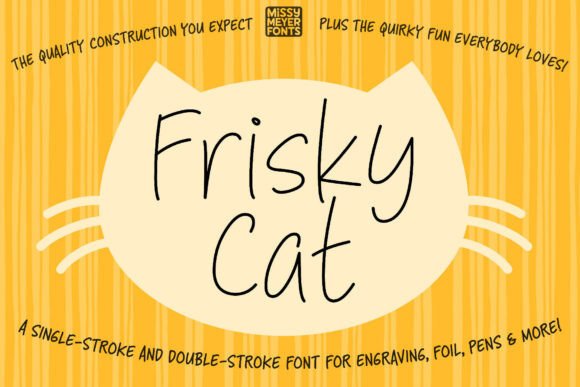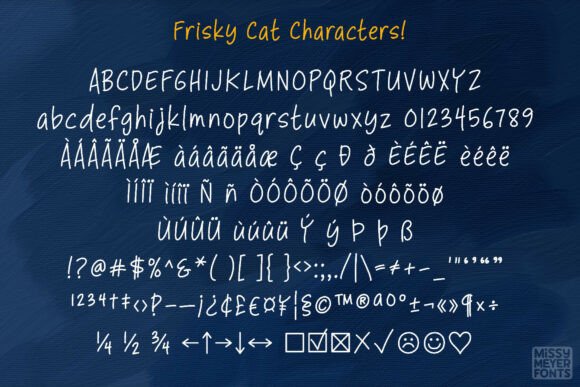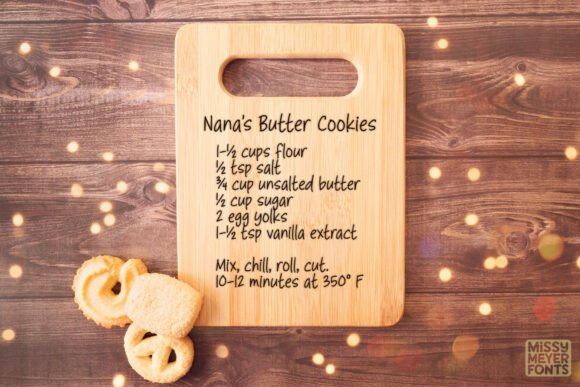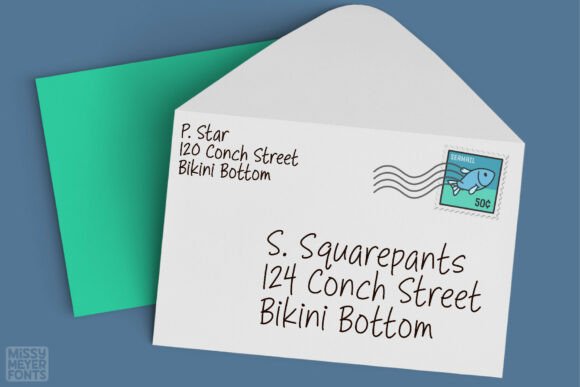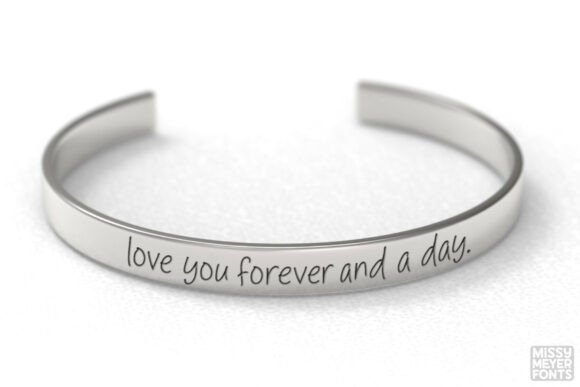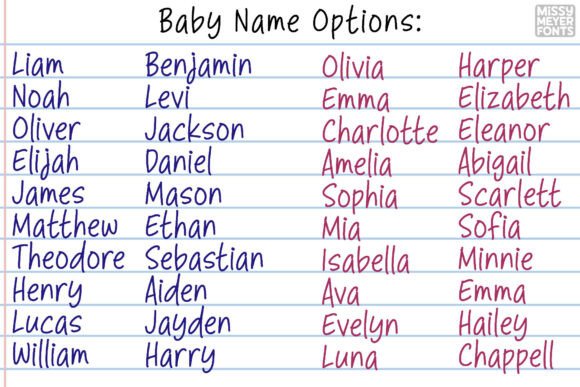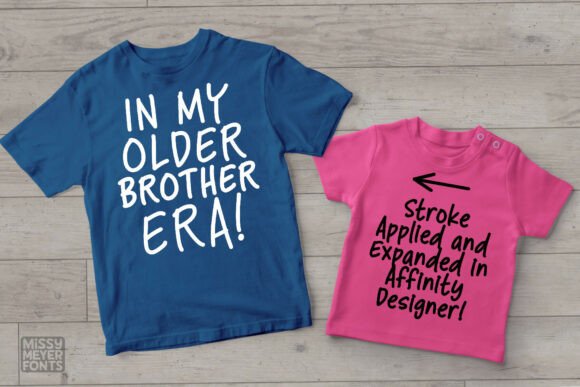
Frisky Cat Font
Frisky Cat is a playful single-line handwriting font derived from the popular Intruding Cat outline typeface. Featuring a tall, narrow structure with charming hand-drawn character, this font is perfect for a wide range of casual and creative projects—from greeting cards and scrapbooks to jewelry engraving, cutting boards, and more.
Unlike traditional print fonts, Frisky Cat is designed specifically for plotter-based and stylus-driven applications. It’s ideal for use with sketch pens, foil quills, engraving tools, infusible ink pens, Glowforge scoring, and other devices that render strokes with a single path rather than a filled outline.
Font Features
Design Style: Handwritten, tall, narrow, and light-hearted—adds personality and charm to any design
Format: Includes both single-stroke and double-stroke versions for compatibility across software platforms and devices
Use Cases: Ideal for digital crafting, laser cutting, engraving, infusible ink, and pen plotting